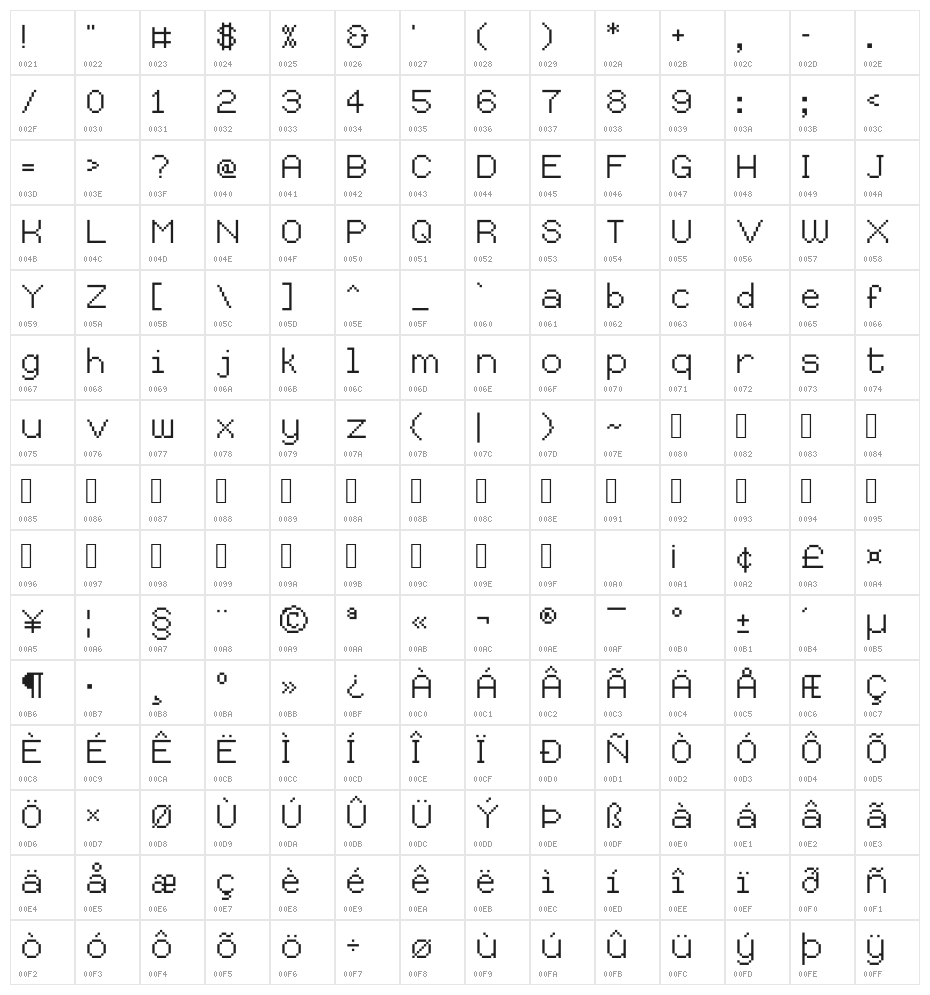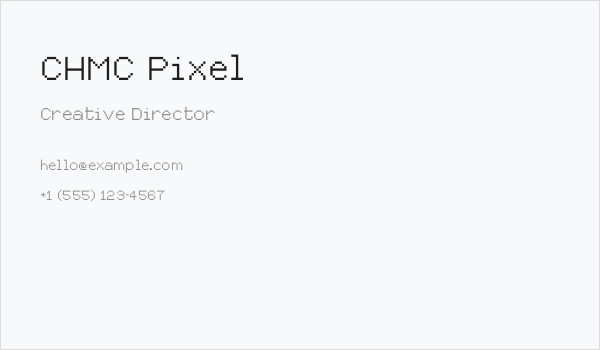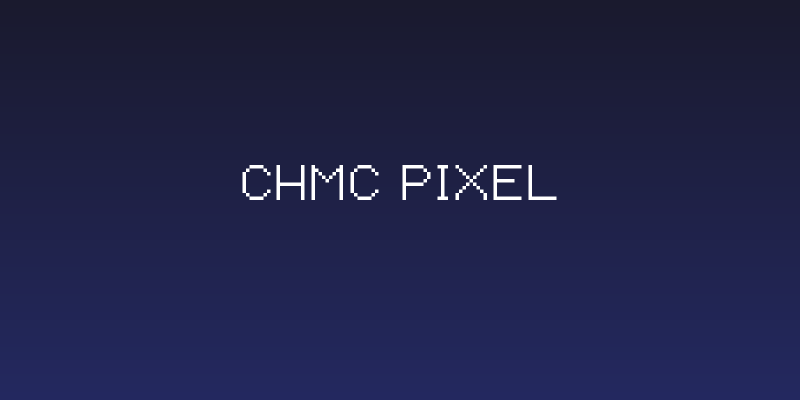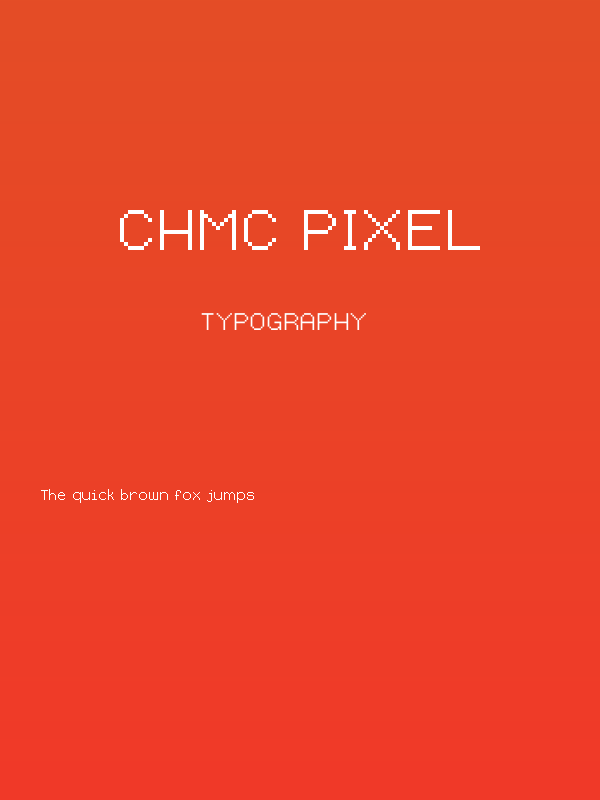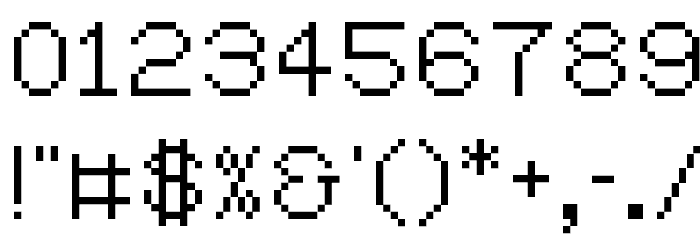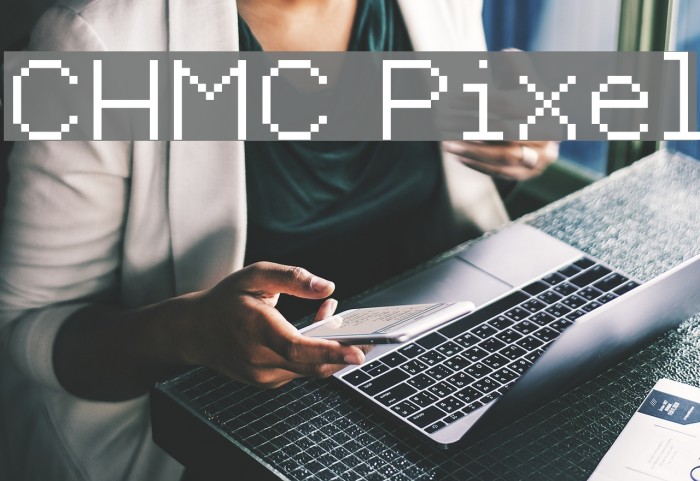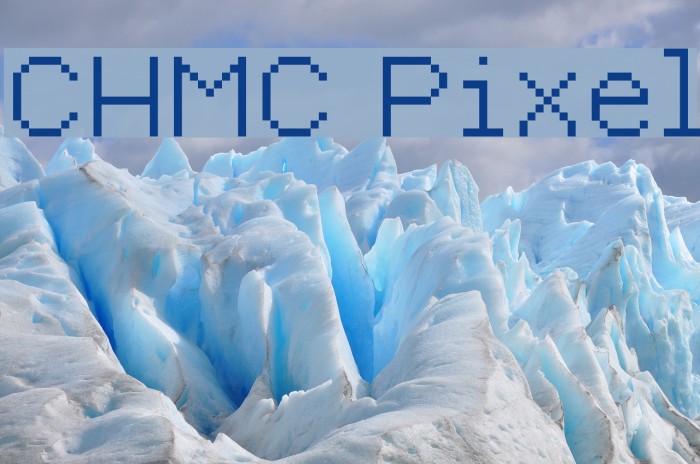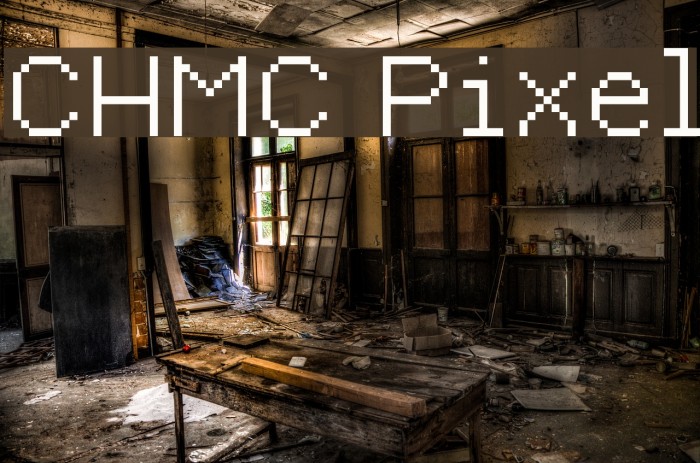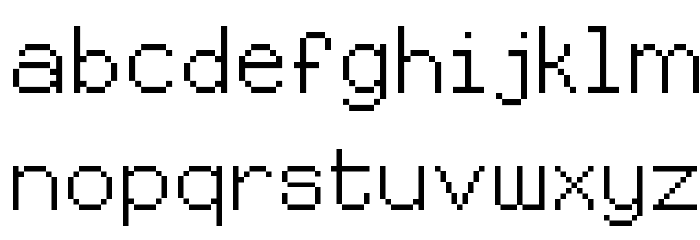
CHMC Pixel Font
CHMC Pixel Description
This font features a pixelated design reminiscent of early digital displays and retro video games. Each character is constructed with a grid-like structure, giving it a blocky and geometric appearance. The uppercase and lowercase letters maintain a consistent height, while the numerals and special characters follow the same pixelated style. The font's simplicity and uniformity make it ideal for projects that aim to evoke nostalgia or a digital aesthetic. Its clear and legible form ensures readability even at smaller sizes, making it versatile for various design applications.
| Use Case | Headlines, Logos, Digital displays |
| Proposed Projects | Ideal for video game design, digital art projects, retro-themed posters, and any creative work that requires a nostalgic digital look. |